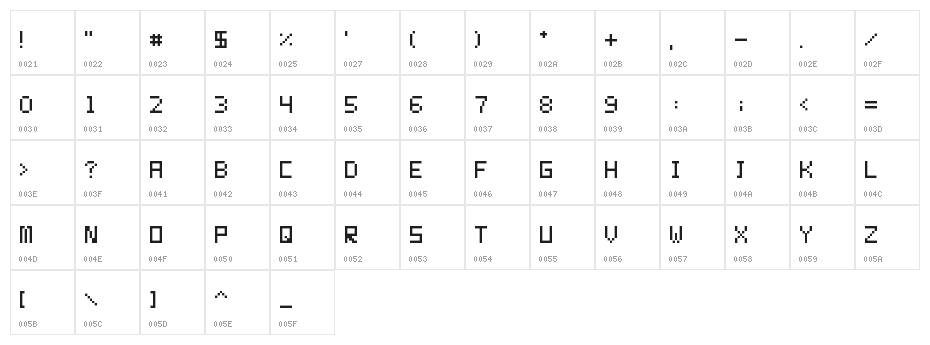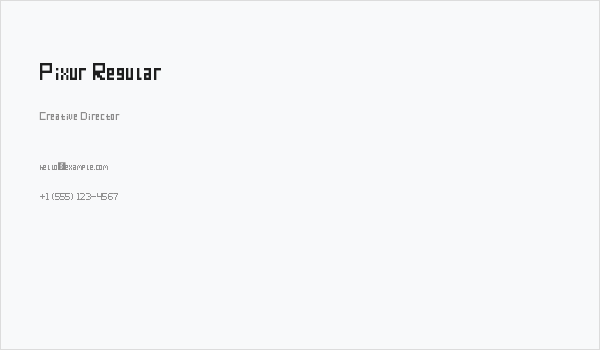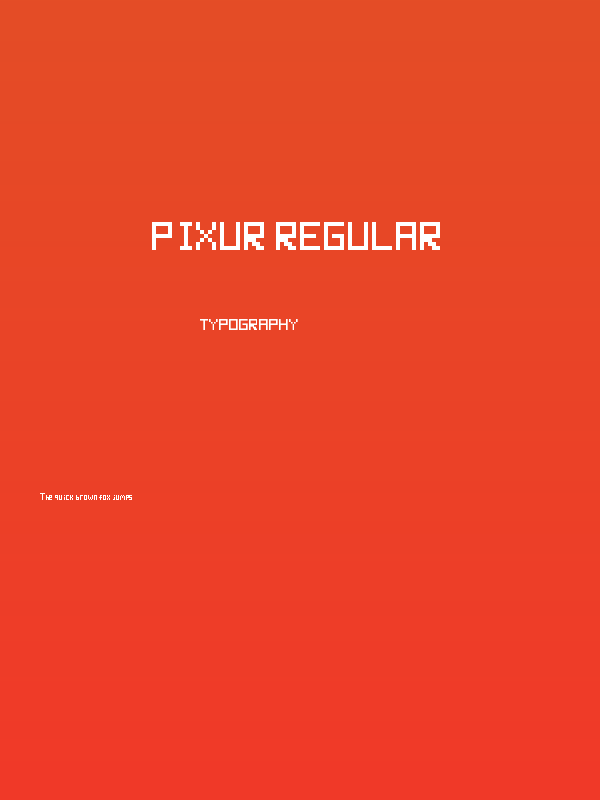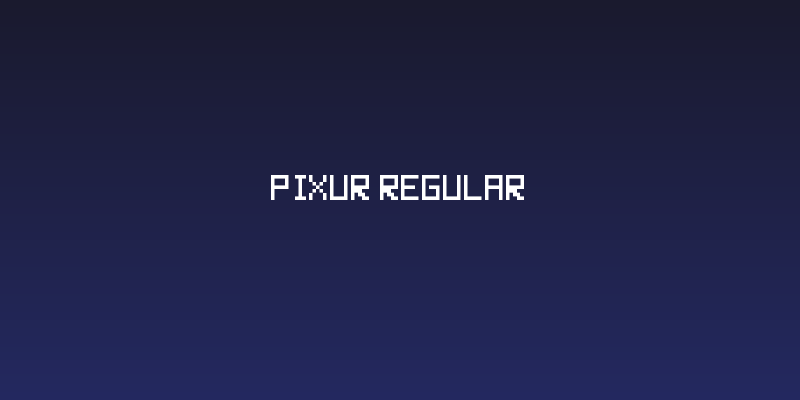
Pixur Regular Font
Pixur Regular Description
This font exhibits a pixelated, blocky style reminiscent of early digital displays and retro video games. Each character is constructed with a grid-like precision, giving it a distinctly digital and geometric appearance. The uppercase and lowercase letters maintain a consistent width, enhancing the uniformity and readability of the font. Numbers and special characters follow the same pixelated design, ensuring a cohesive look across all glyphs. The font's simplicity and clarity make it suitable for digital and tech-themed projects, where a nostalgic or minimalist aesthetic is desired.
| Overall Style | Retro, Digital |
| Use Case | Logos, Headlines, Digital displays |
| Proposed Projects | Ideal for video game graphics, tech-themed posters, digital art, and retro-style branding. |